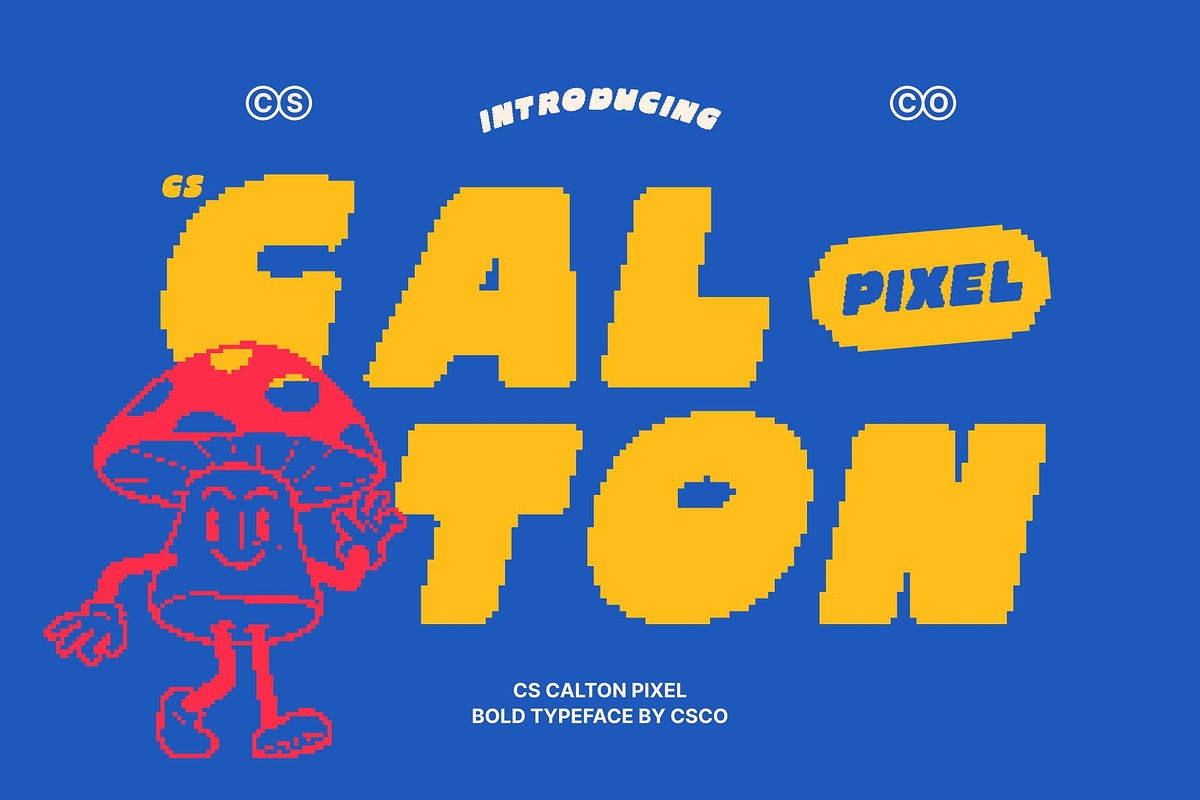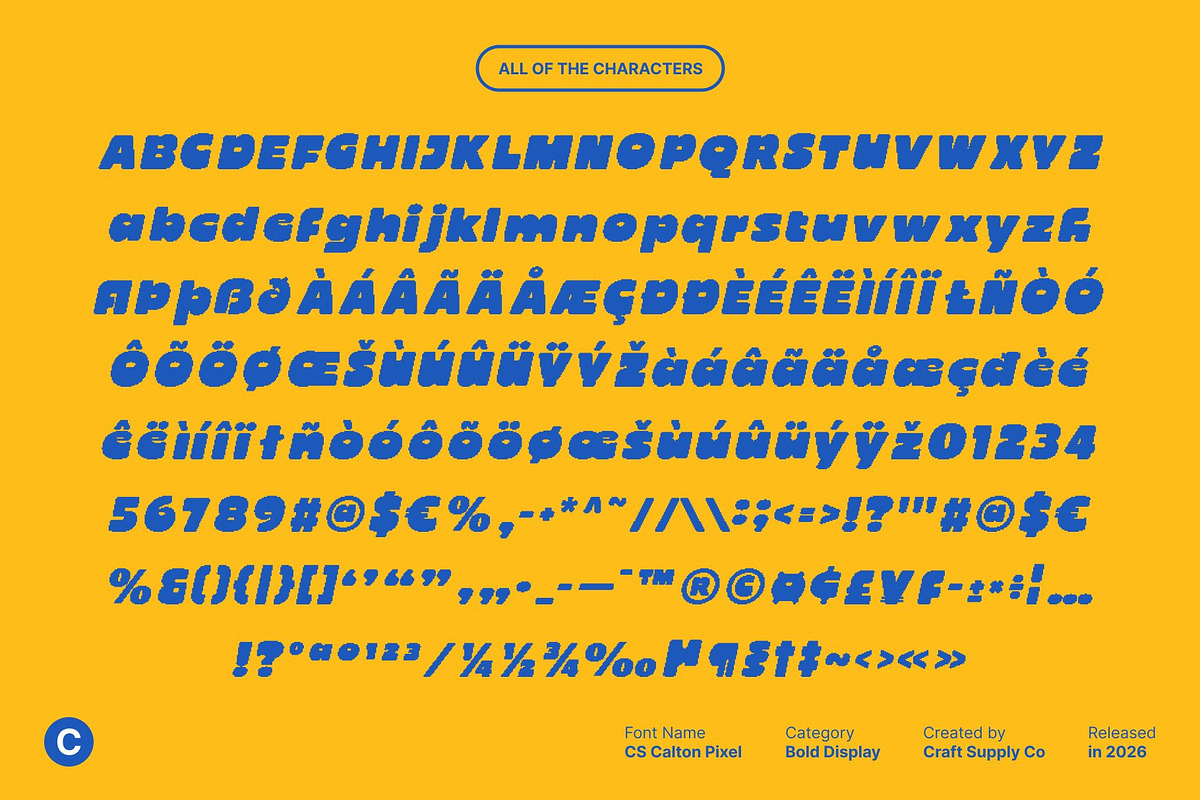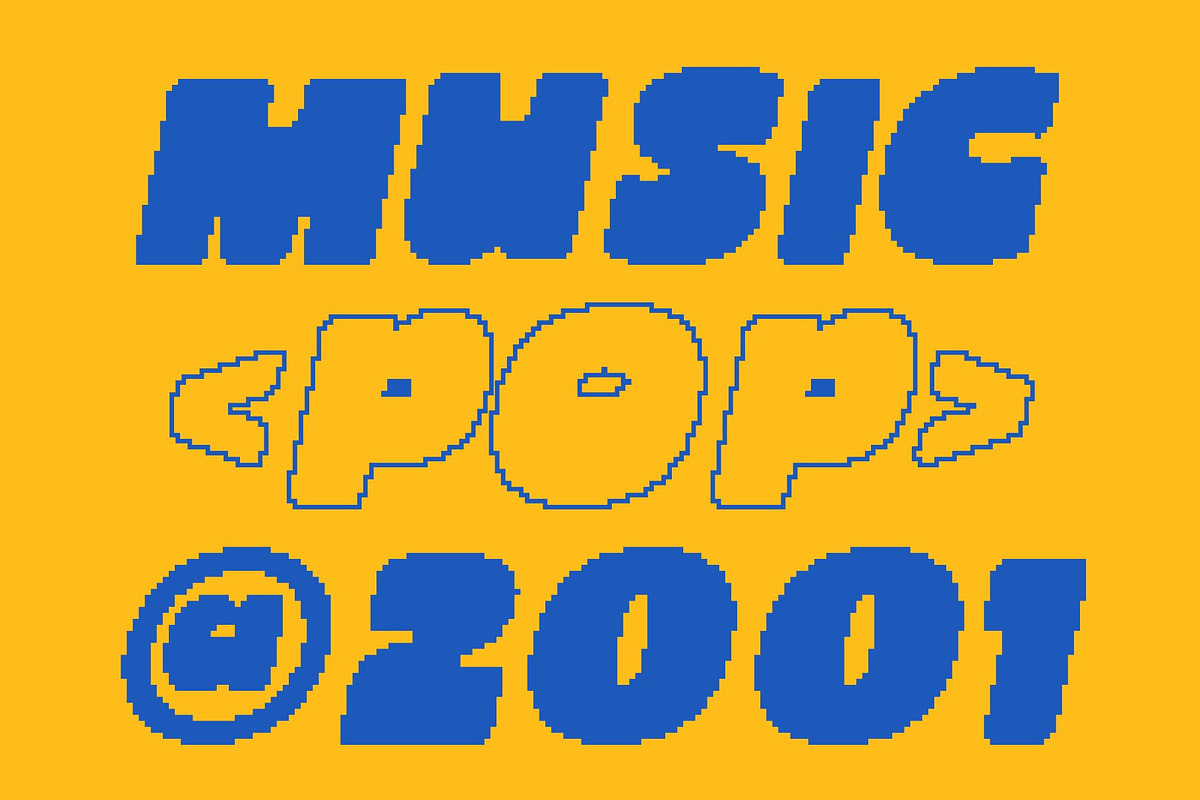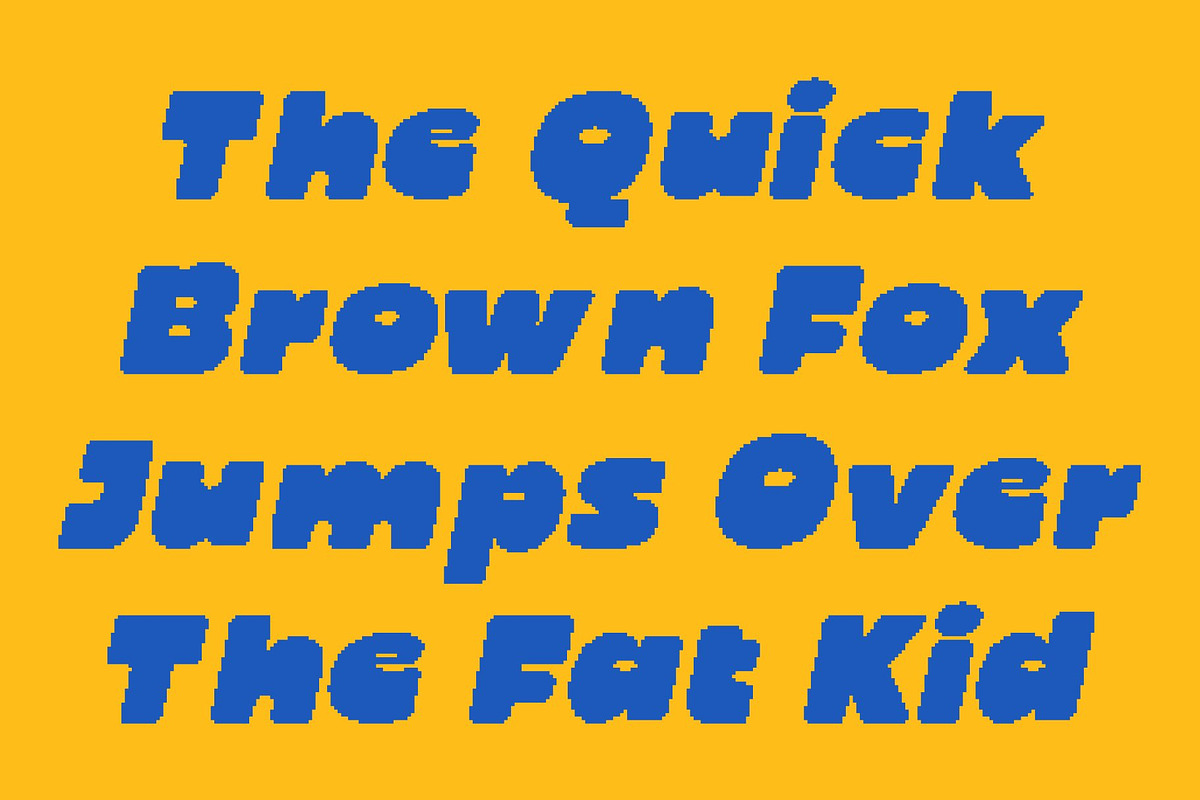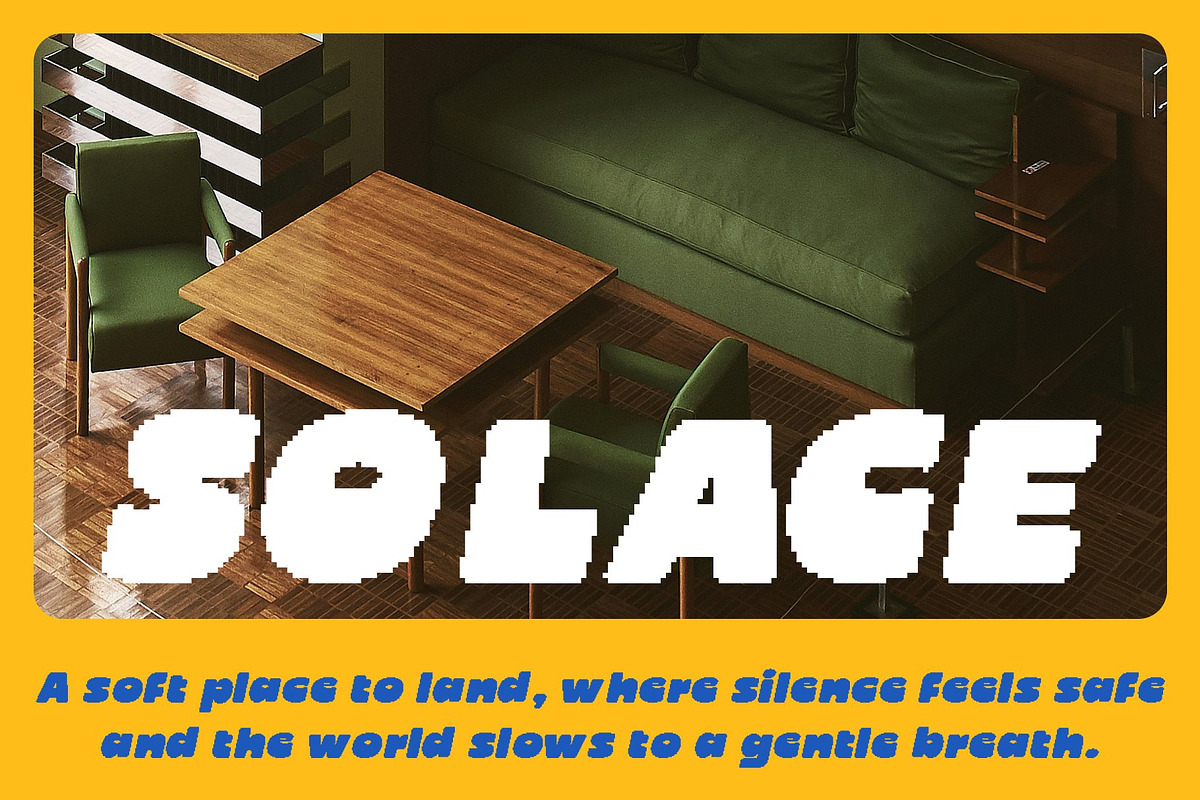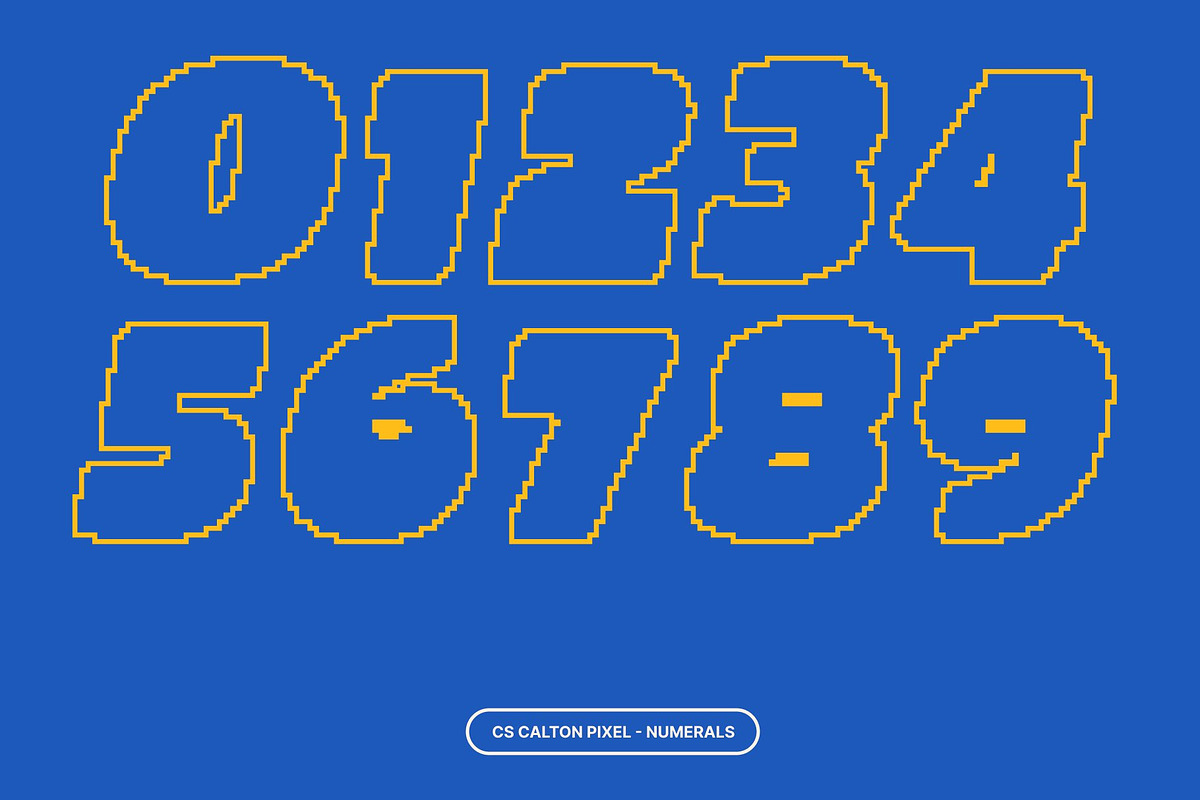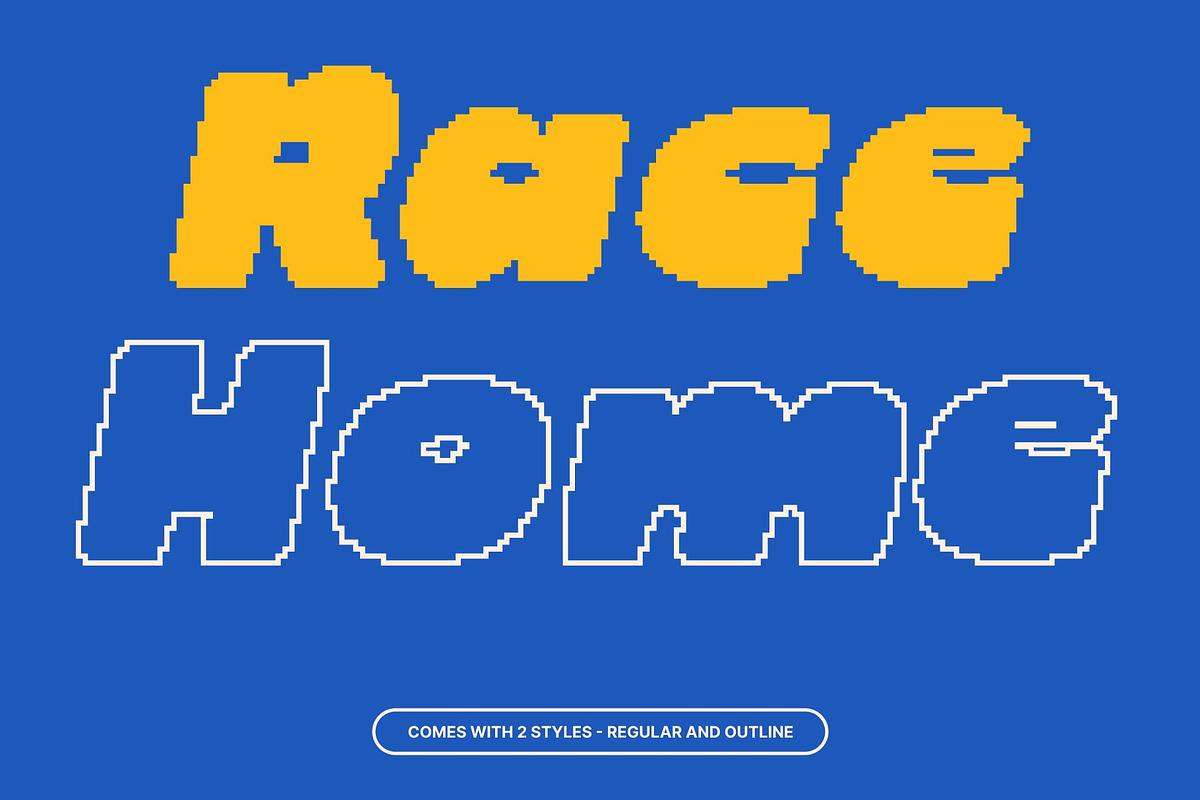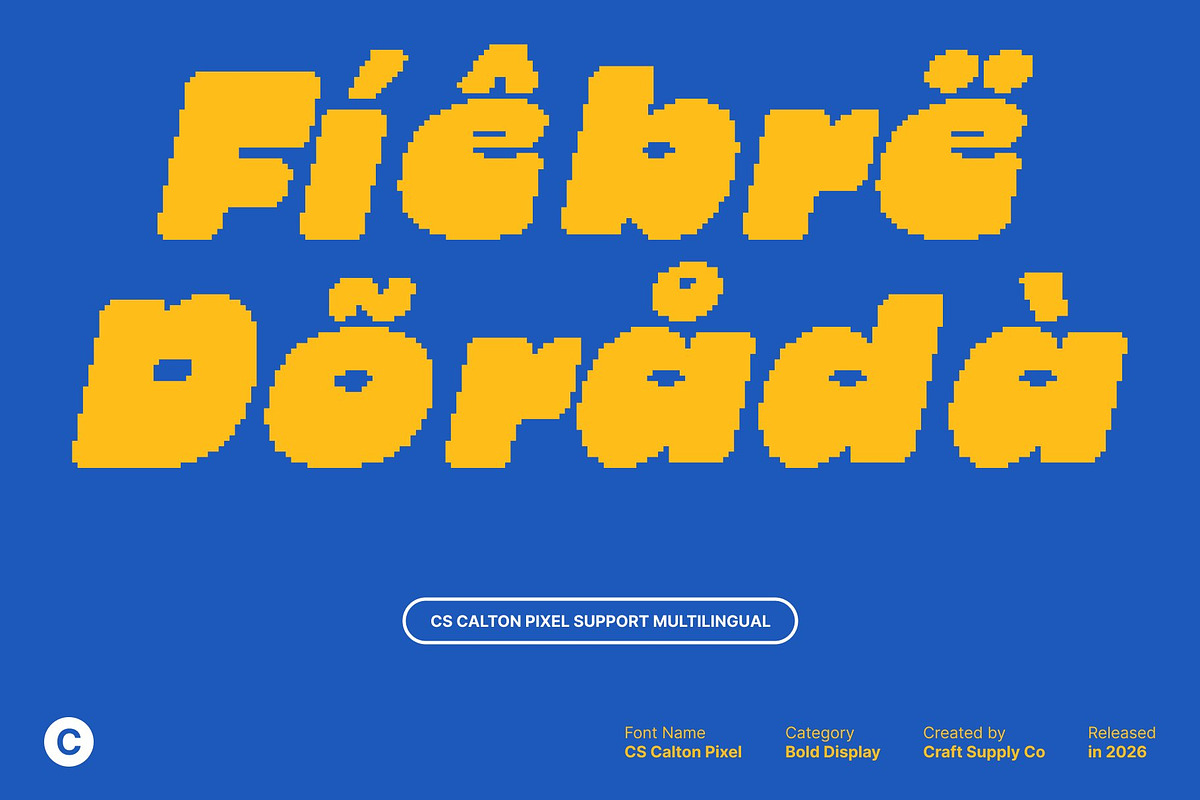
CS Calton Pixel
CS Calton Pixel – Bold Power with Pixel Precision
Commanding Display Sans Serif This is a bold display sans serif designed to project strength and modern presence. Its pixel-aligned letterforms maintain clarity while giving your designs a striking, digital-ready aesthetic. Every stroke is crafted to make a powerful statement, perfect for high-impact headlines, logos, and visual compositions.
Modern Simplicity with Expressive Energy This font combines boldness with clean geometry, creating a professional yet dynamic appearance. The carefully balanced proportions and pixel-perfect structure add both readability and character, ensuring that your message is communicated with clarity, style, and confidence across digital and print layouts.
Versatile for Branding and Identity Ideal for brands that want to stand out, this font captures attention immediately while maintaining timeless appeal. From packaging and promotional campaigns to editorial layouts, its bold design strengthens visual identity and leaves a memorable impression on every viewer.
Perfect for Posters, Headlines, and Statement Graphics Whether for high-impact signage, dynamic posters, or modern editorial titles, this font delivers maximum presence. Its assertive pixel-based forms combine power, precision, and contemporary style, giving your projects a fearless and unforgettable design edge.